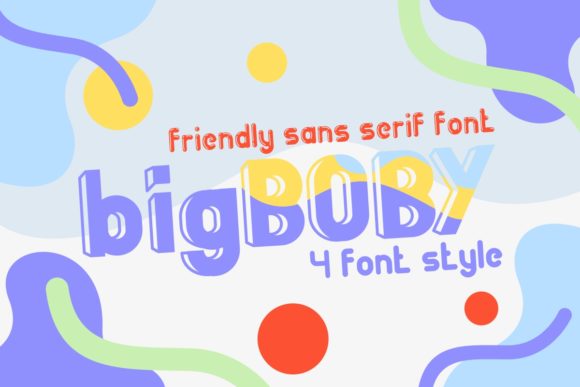
The Big Boby Font: A Fresh Take on Modern Sans Serif
I’ll never forget the moment I stumbled upon the Big Boby font. I was working on a project for a client who wanted a fun, modern sans serif font that would appeal to a younger audience. I had spent hours scouring the internet for the perfect font, but nothing seemed quite right. That was until I discovered Big Boby – a game-changing font that has since become a staple in my design toolkit.
A Personal Review: What I Love (and What I Don’t)
• ✅ Fresh and modern design: Big Boby has a sleek, contemporary feel that’s perfect for projects that need a bit of pizzazz.
• ✅ Elegant and fun: This font seamlessly blends sophistication with playfulness, making it ideal for a wide range of applications.
• ✅ Highly versatile: From digital media to print materials, Big Boby looks great in any context.
• ✅ Extensive character set: With a wide range of glyphs and stylistic alternates, you can experiment with different looks and styles.
• ⚠️ Limited language support: While Big Boby covers many languages, it may not support some of the more obscure languages.
• ⚠️ Not ideal for body text: Due to its bold and playful nature, Big Boby works best as a display font or for short paragraphs.
One of the standout features of Big Boby is its extensive OpenType features and glyphs. With a range of stylistic alternates, you can experiment with different looks and styles to find the perfect fit for your project.
The Story Behind Big Boby: Designer Inspiration
Big Boby was designed with the goal of creating a fresh and modern sans serif font that would appeal to a wide range of designers and creatives. The designer, inspired by the world of comics and playful typography, set out to create a font that was both elegant and fun.
Q: What is Big Boby font?
A: Big Boby is a modern sans serif font with a fresh, elegant, fun, and stylish feel.
Q: Is Big Boby suitable for body text?
A: While Big Boby can be used for short paragraphs, it’s primarily designed as a display font and works best for headlines and titles.
Q: Is Big Boby available in different weights?
A: Big Boby comes in a range of weights, making it versatile for different design applications.